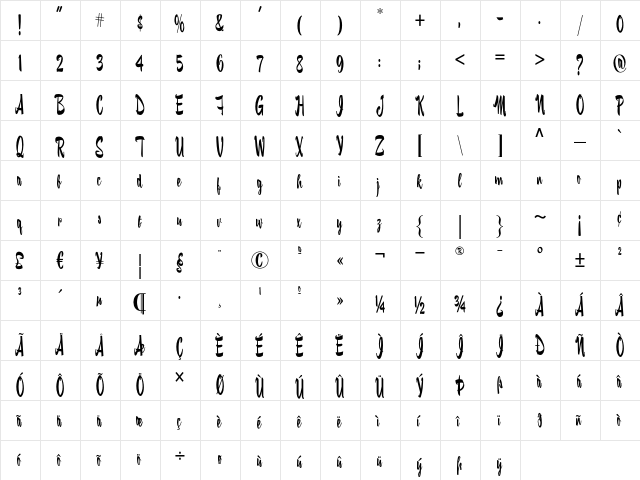
Fuller Brush NF Regular
Design Context for Fuller Brush NF Typeface
Fuller Brush NF brings a calligraphic fluidity to the page — its connecting strokes and expressive curves give it an unmistakably human quality.
Font Pairing: Combine Fuller Brush NF with a simple geometric sans for maximum contrast — the tension between flowing curves and clean structure is a classic typographic pairing.